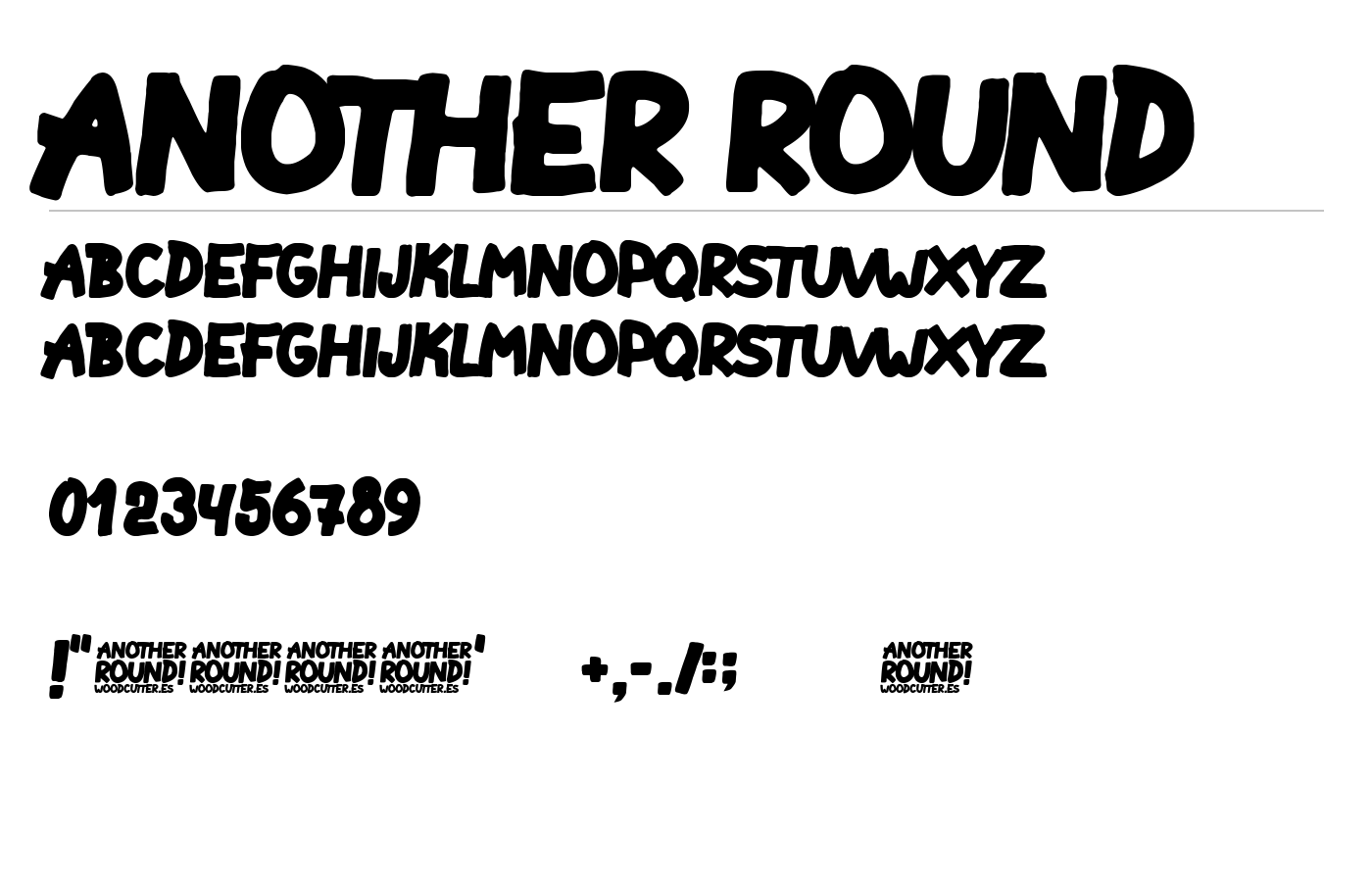
Another Round is a bold, playful sans-serif font with a hand-drawn, casual feel. Its thick, rounded letterforms and slightly irregular shapes give it a friendly, energetic personality perfect for informal designs like posters, playful branding, and children’s products. This font works best in headlines and creative projects where a fun, approachable vibe is desired.
Another Round Font
About Another Round Font